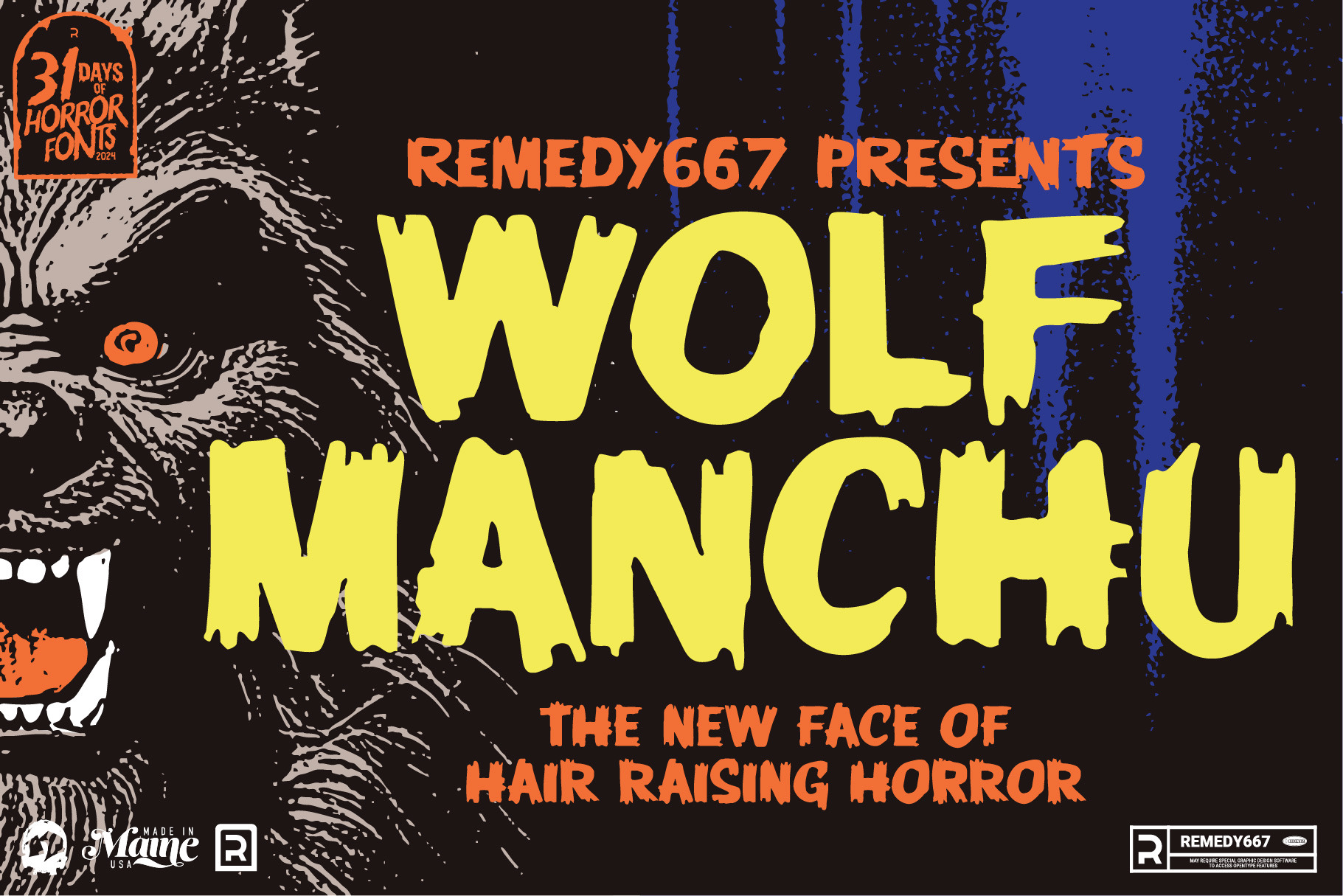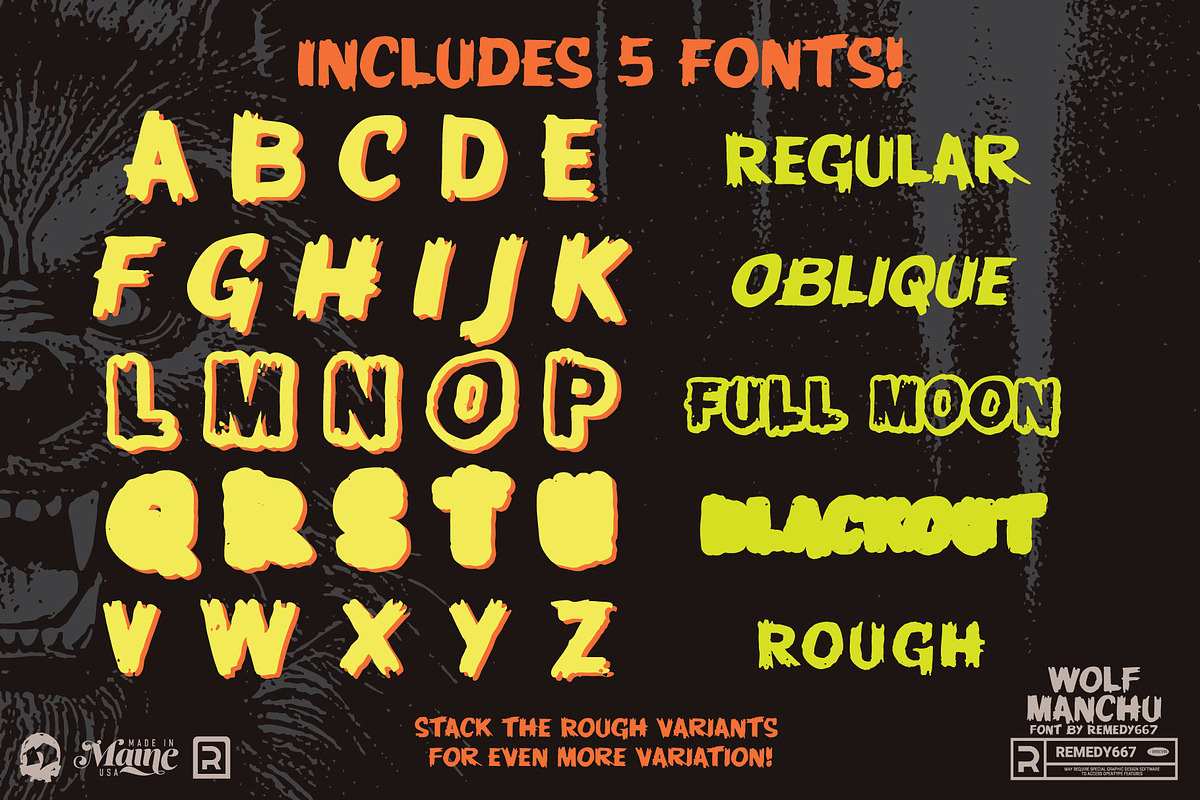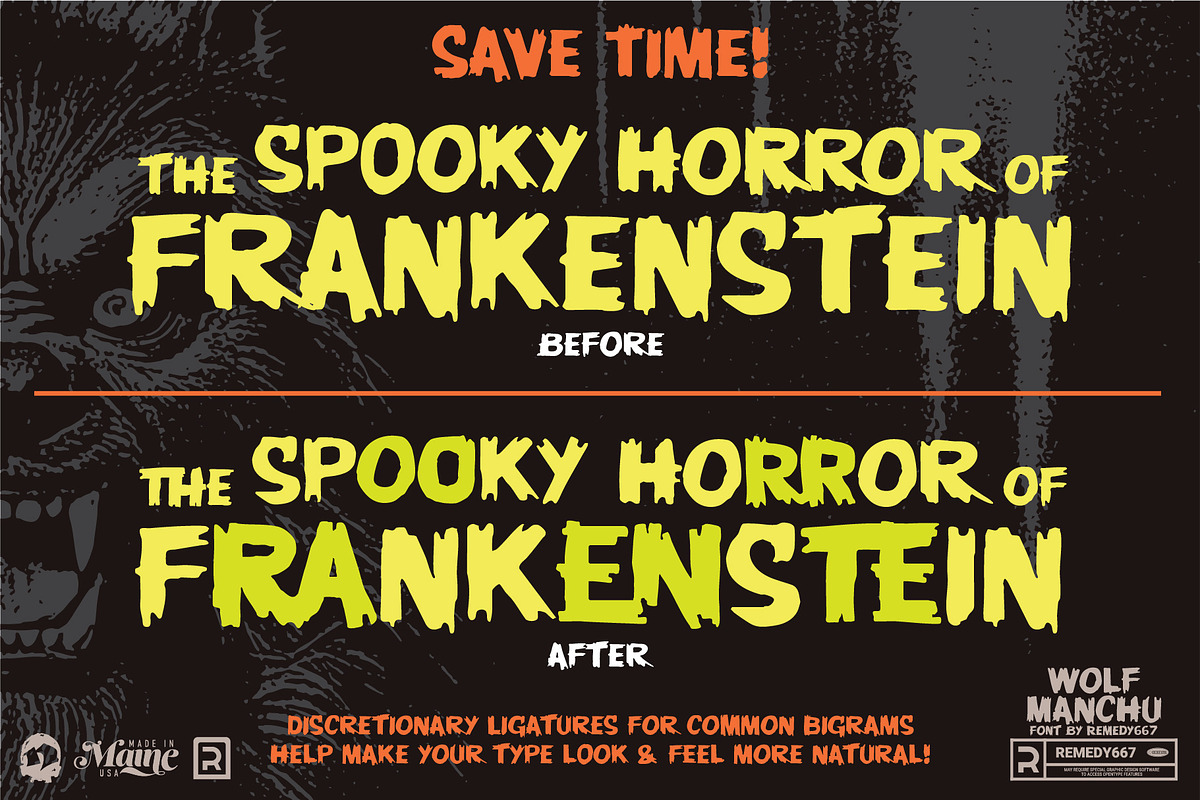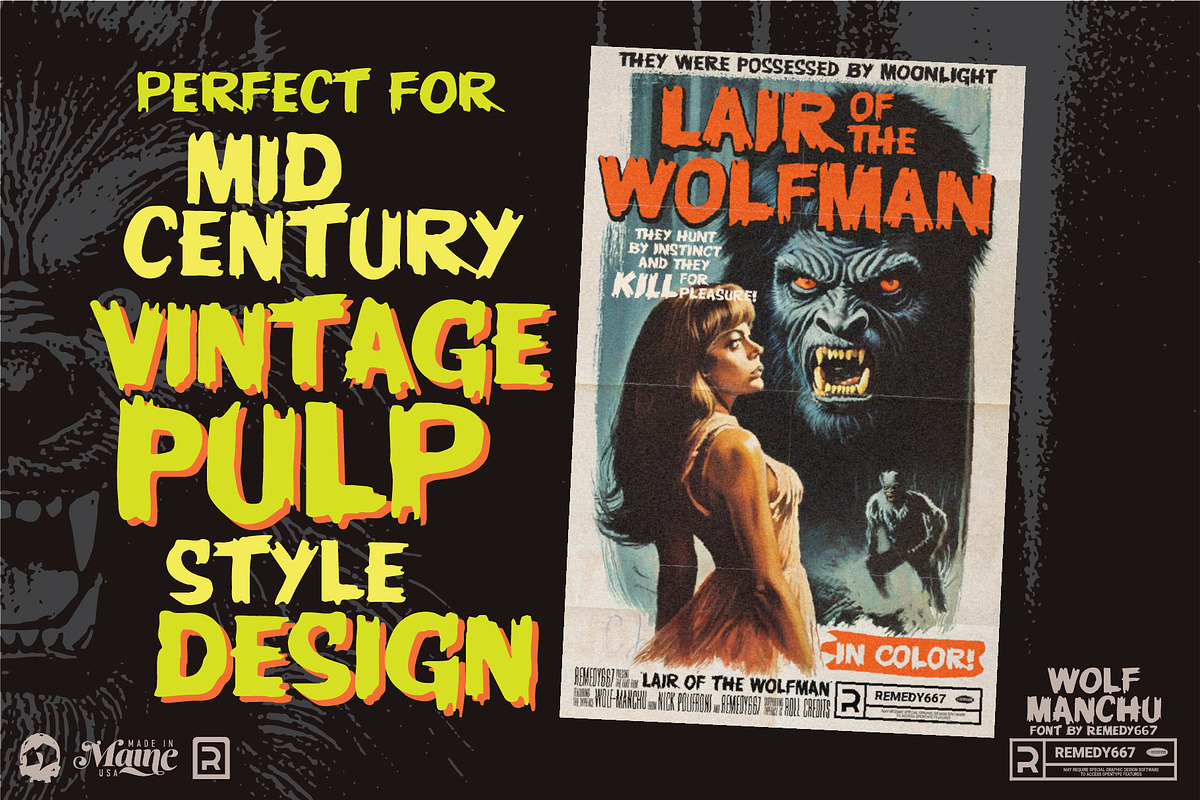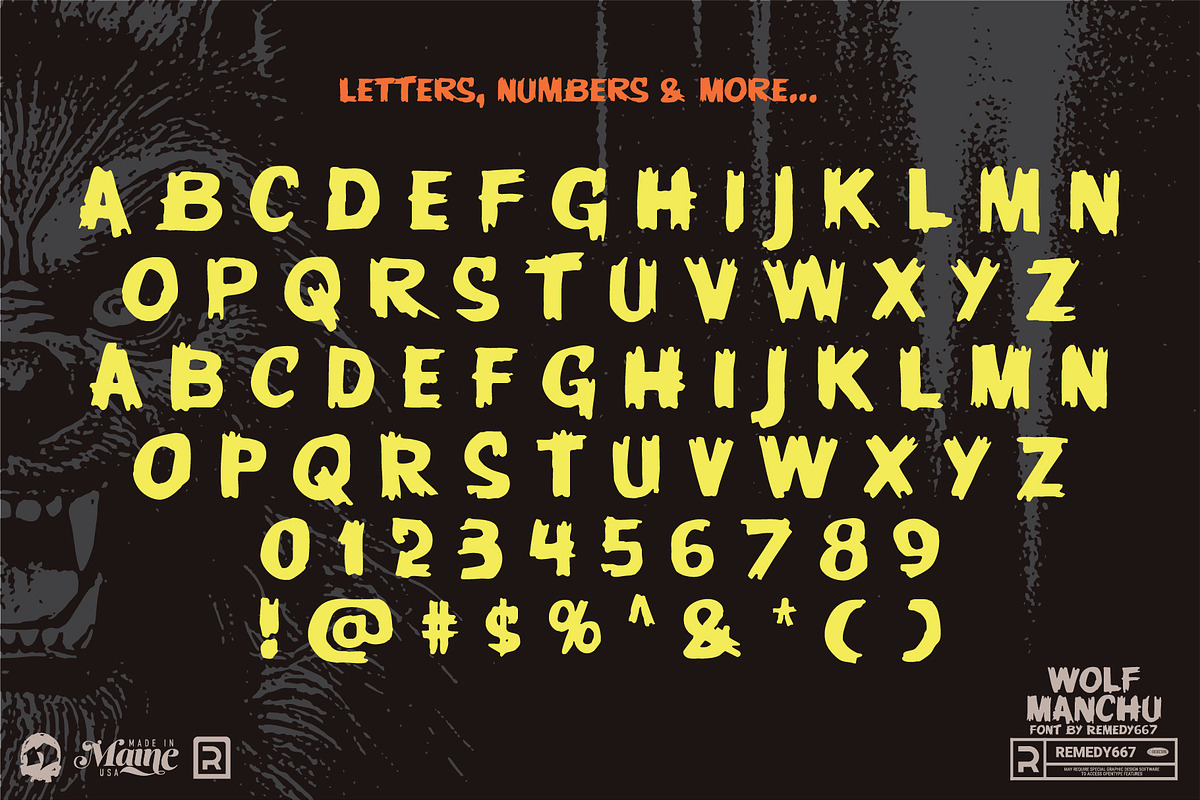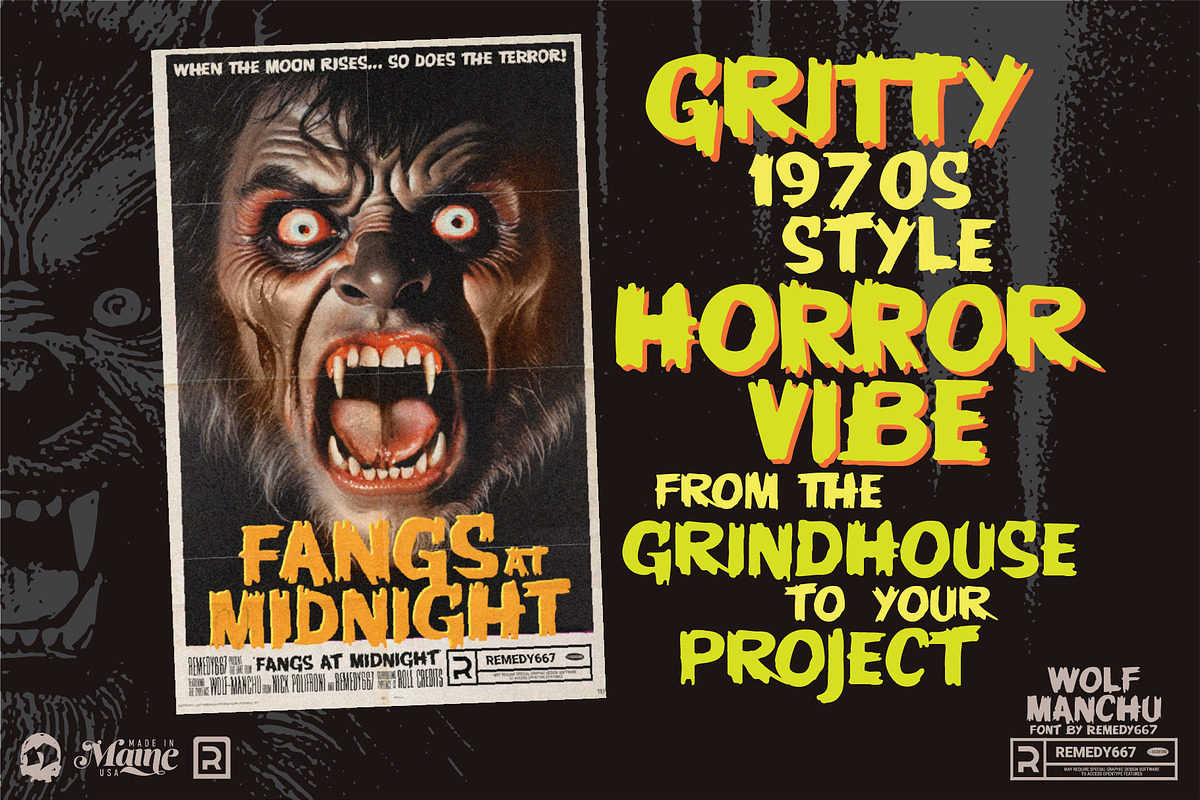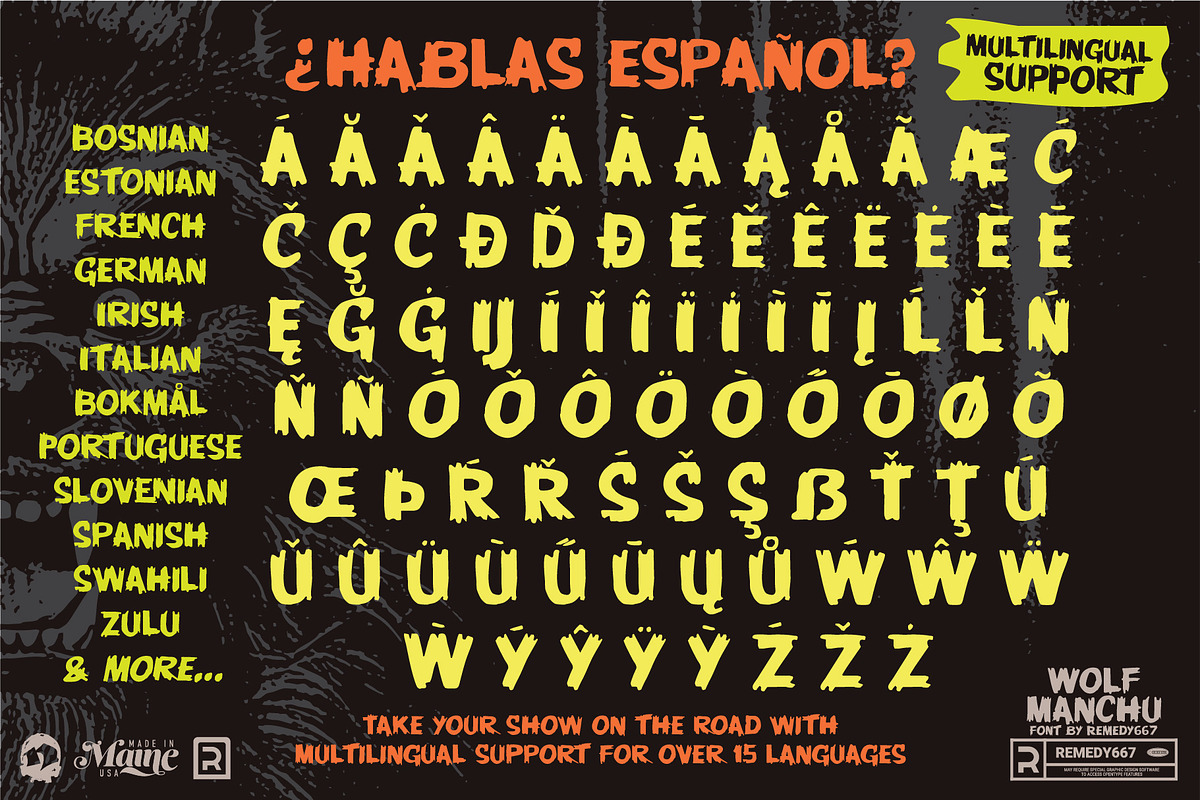
Wolf Manchu - Layered Horror Font
Awooo, little creeps and ghouls! Howl at the moon and summon the spectral spirit of Wolf Manchu! This font is a terrifyingly terrific tribute to 1950s and 60s monster movie posters, western pulp epics, and gritty dime novel covers. It’s the perfect mix of vintage grit and monstrous flair—sure to turn any design into a howling success!
Crafted during the bone-chilling 31 Days of Horror Fonts 2024, Wolf Manchu boasts a complete set of letters, numbers, punctuation, and multilingual support. Whether you're wrangling cowboys or conjuring creatures, this font will stalk your designs with deadly style. Beware: it's bound to raise a few hackles!
- Full set of uppercase and lowercase letters, numbers, and punctuation
- Inspired by monster movies, western posters, and pulp novel aesthetics
- Multilingual support for international haunts
- Perfect for posters, book covers, logos, and Halloween designs